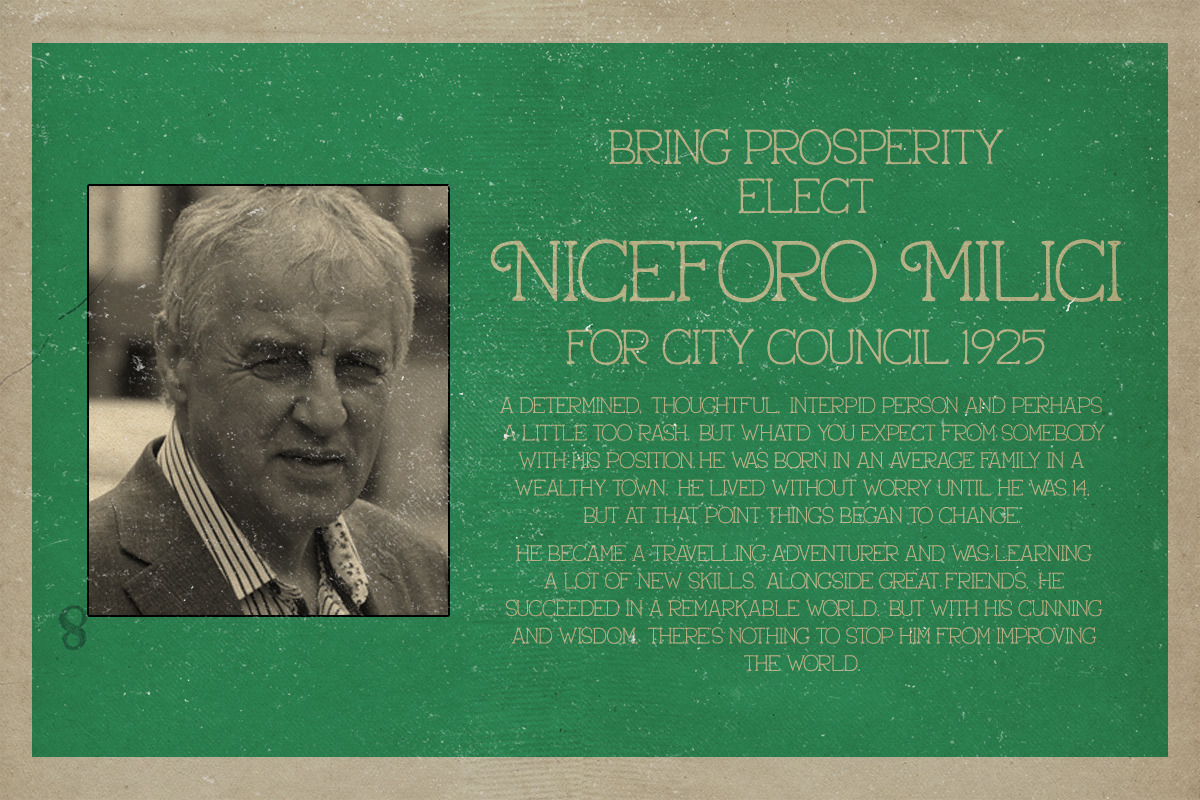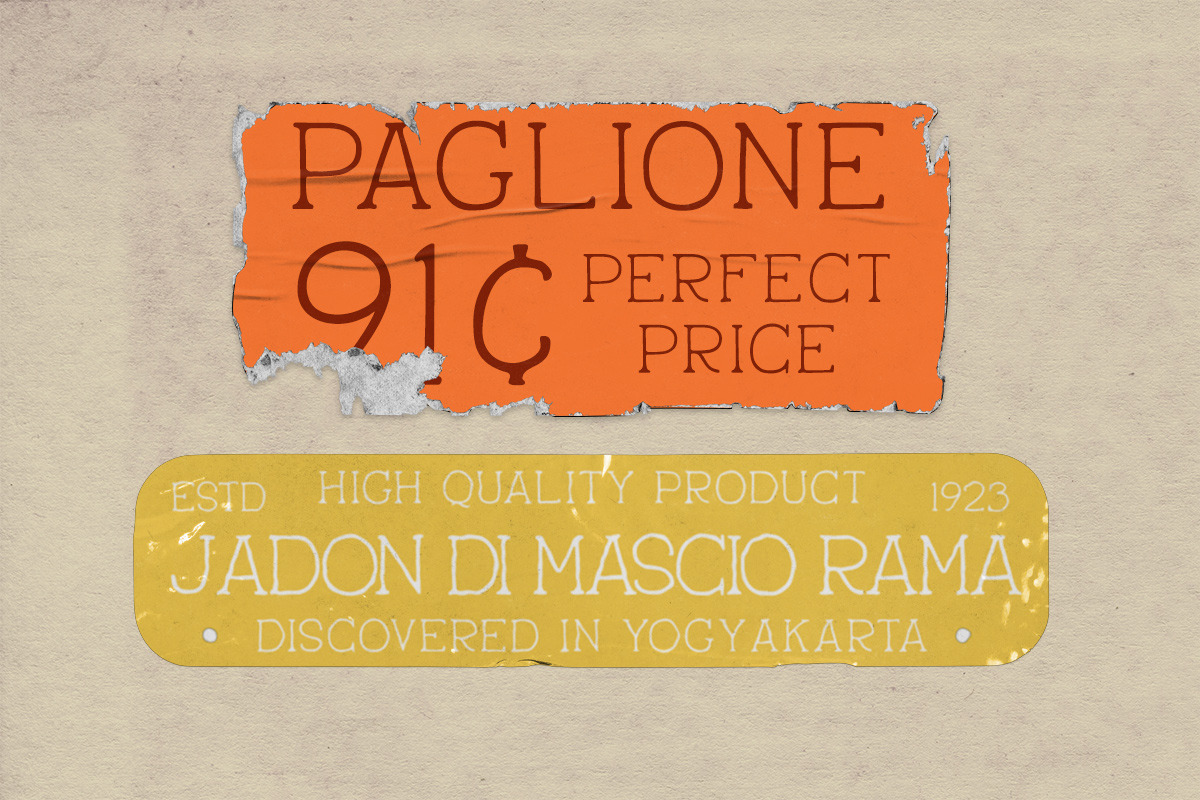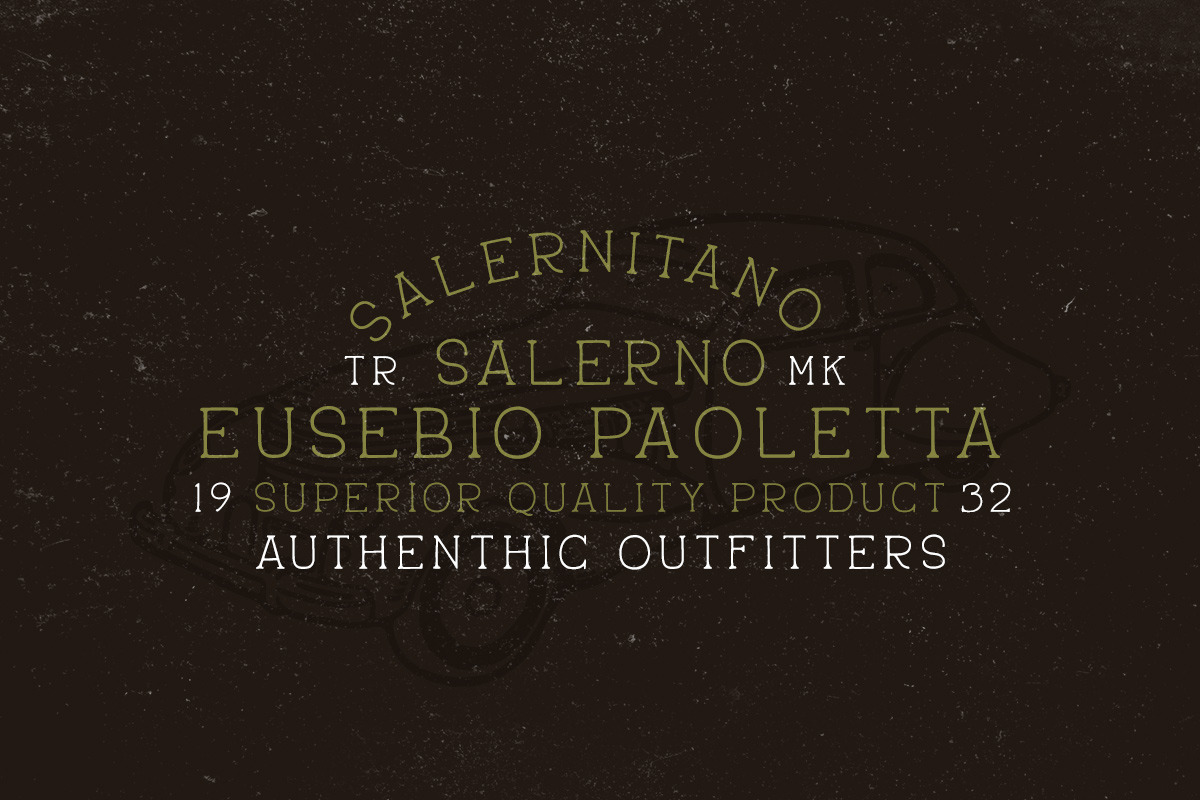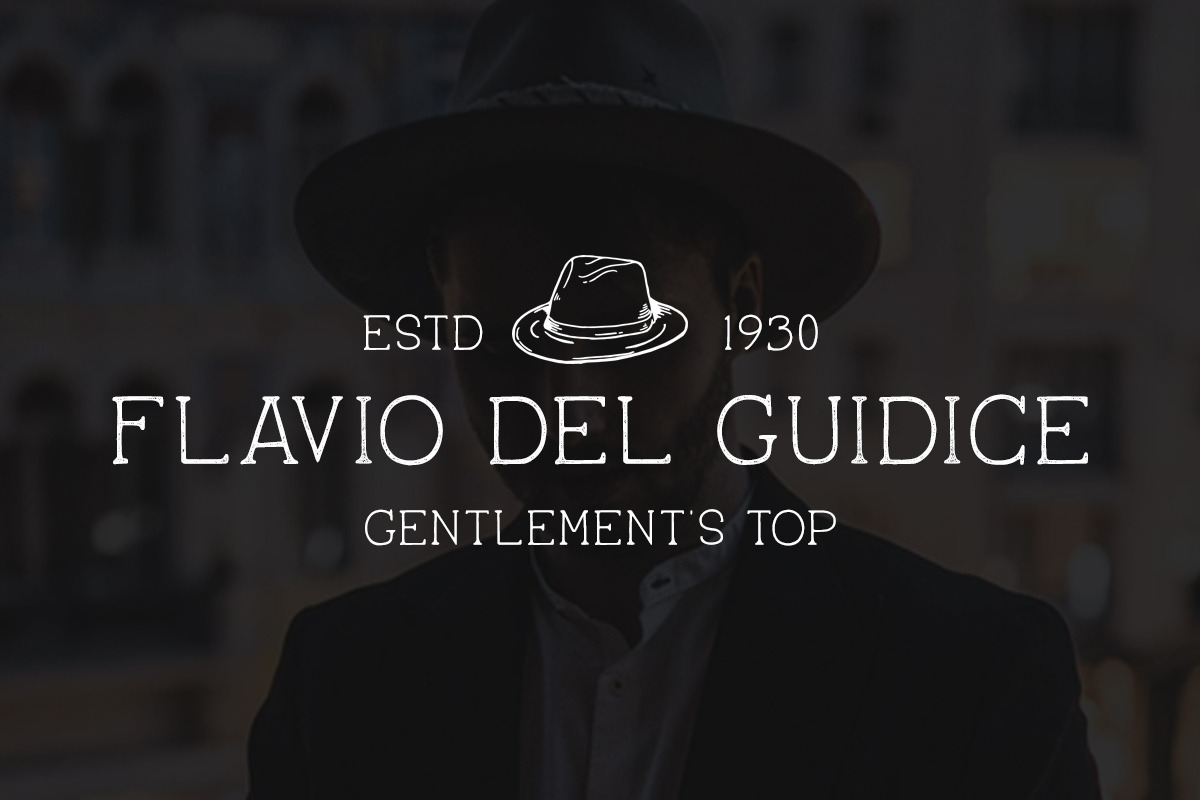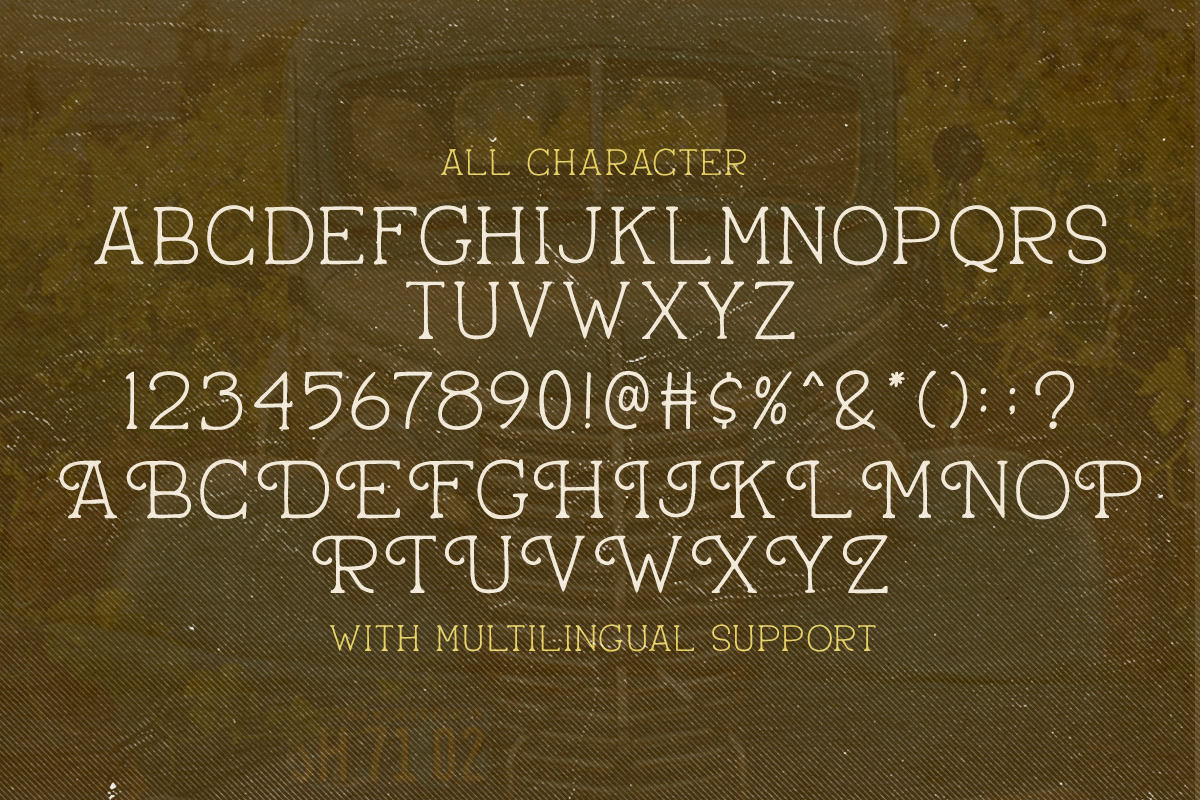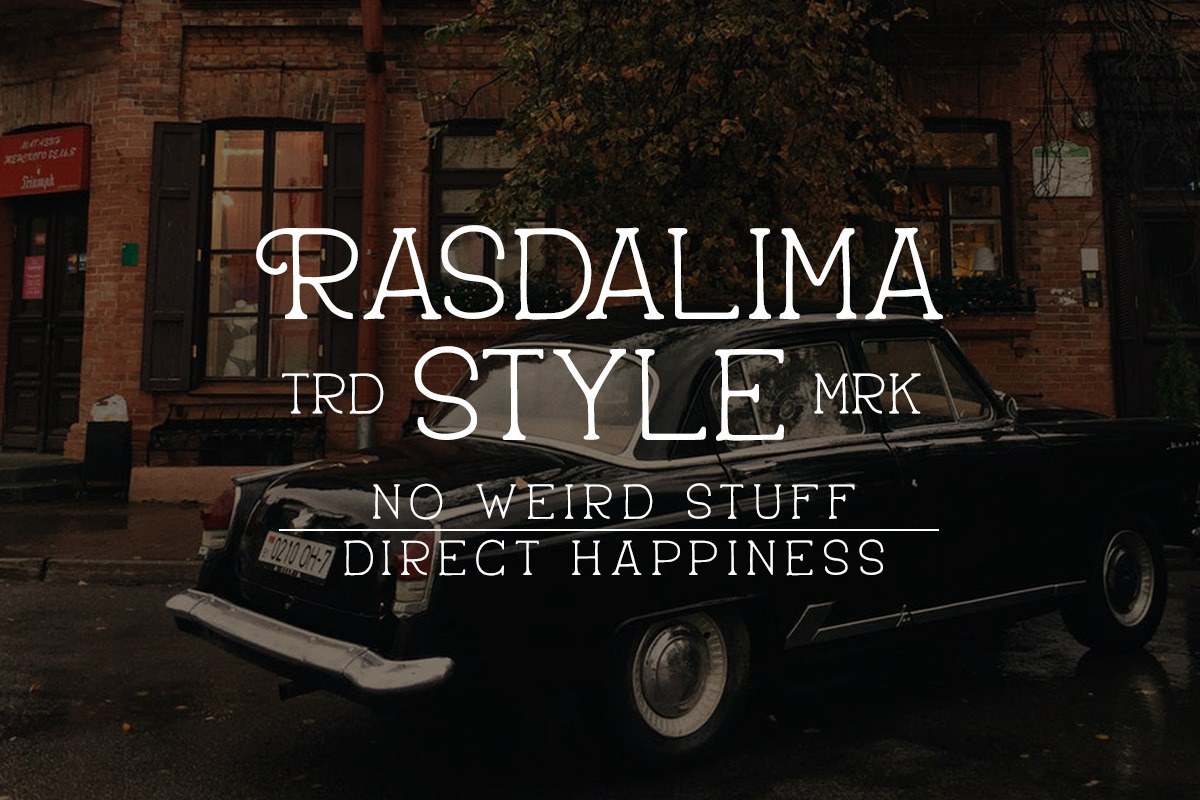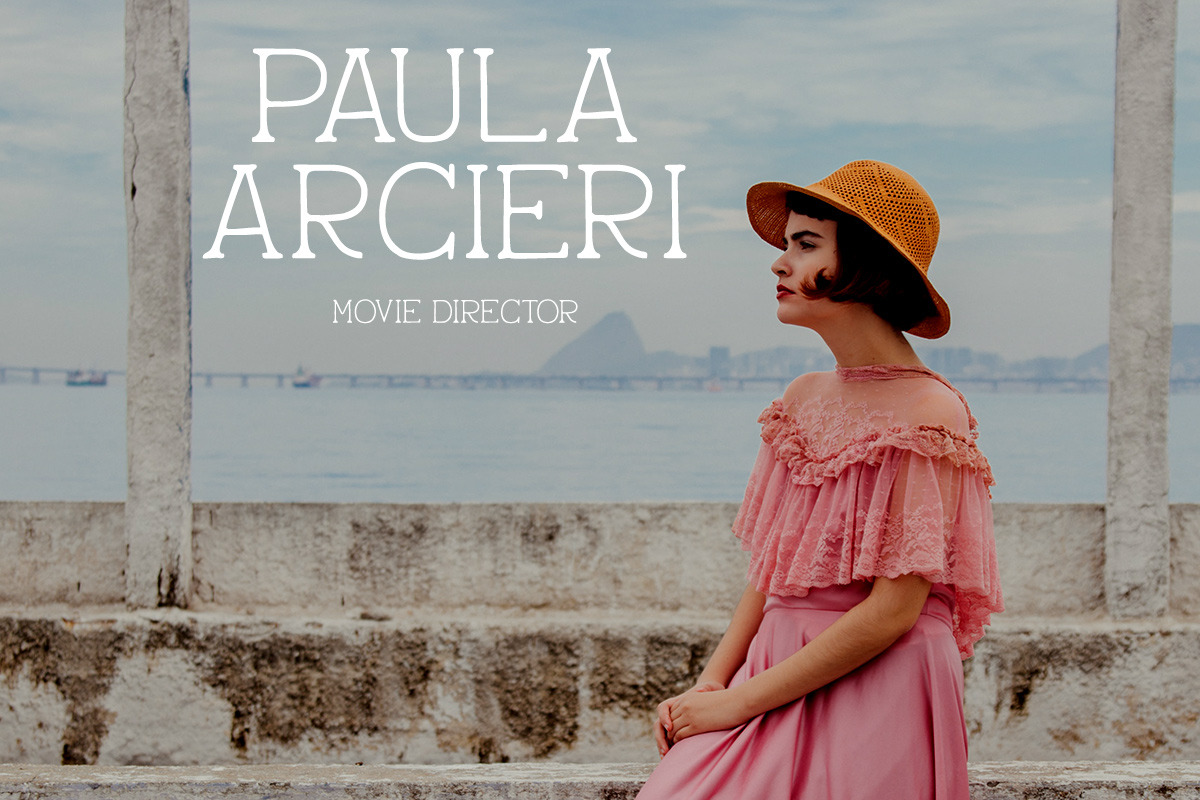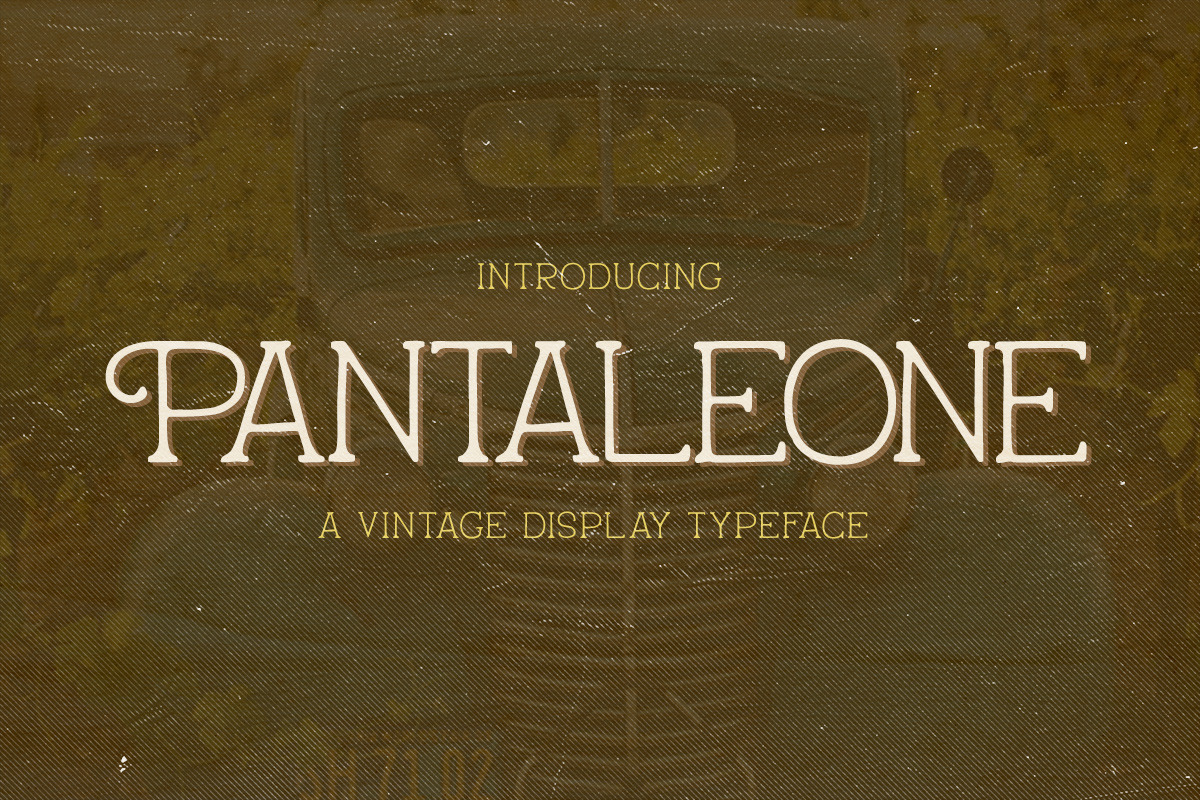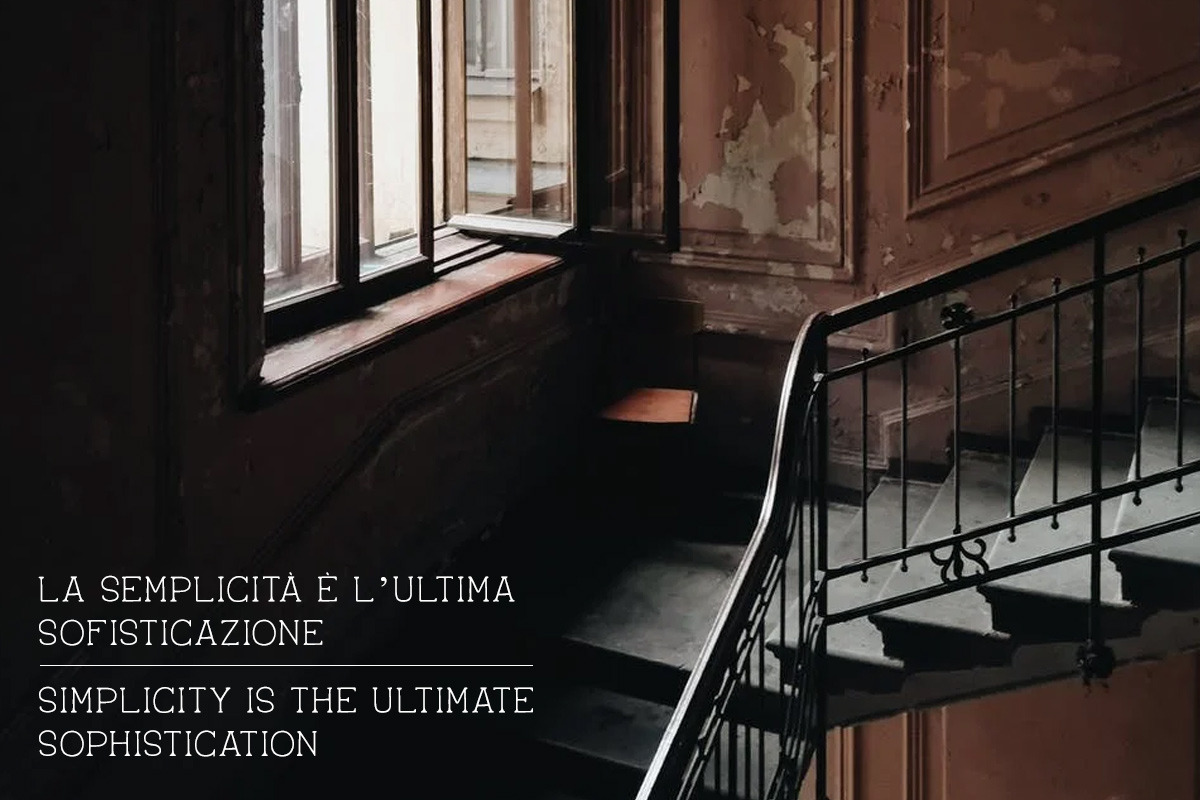
Introducing, Pantaleone! our newest font that takes a vintage theme.Pantaleone makes your job of making vintage designs easier, this font is suitable for vintage design uses, especially for packaging, branding, quotes, etc.